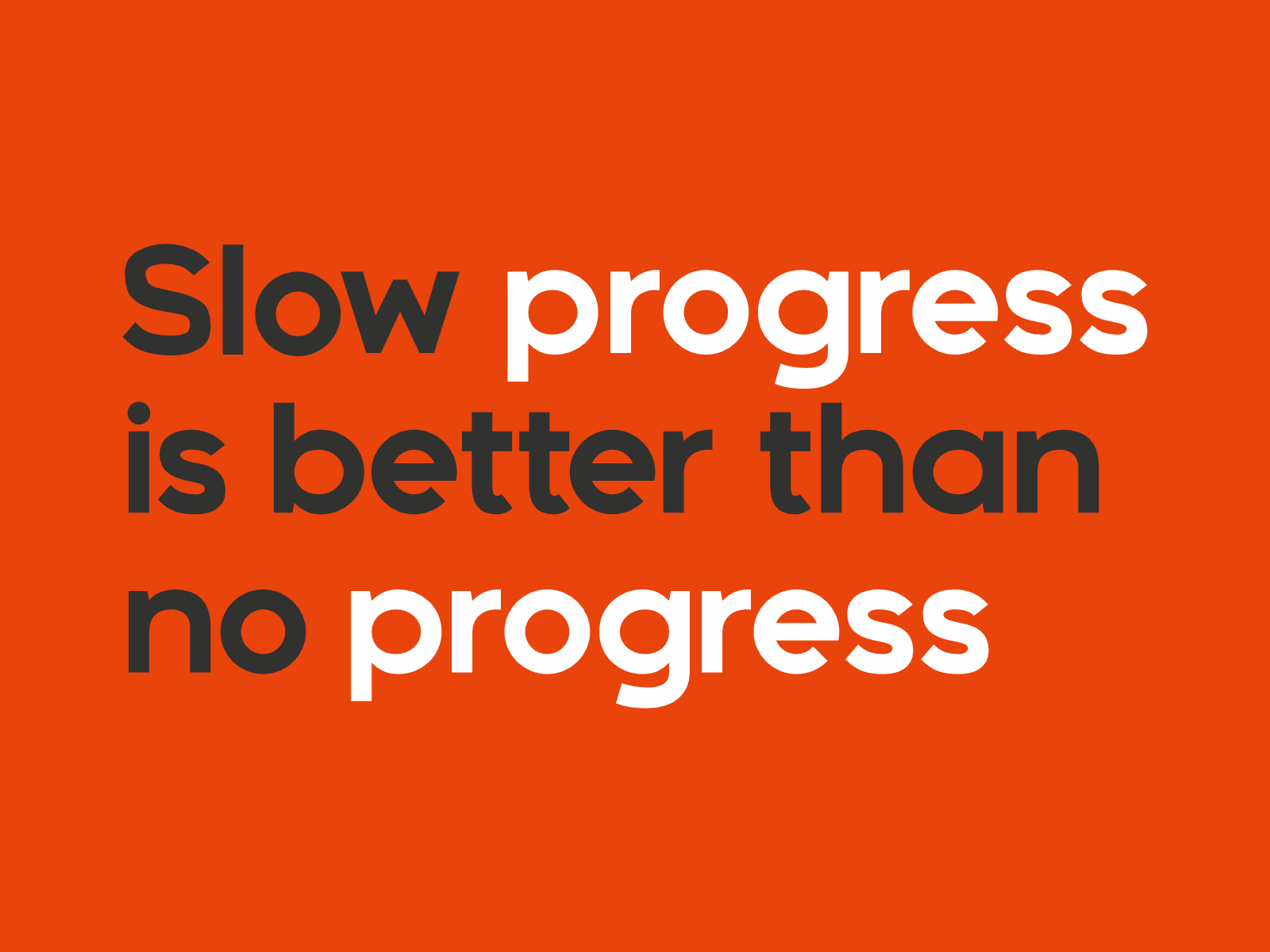
Redesigned harmony font. Work in progress.
I decided to redesign lowercase letters in my harmony font. What do you think? I learned a little more about typography and wasn't happy with my lowercase letters in this font so i decided to redesign it to make it more usefull.